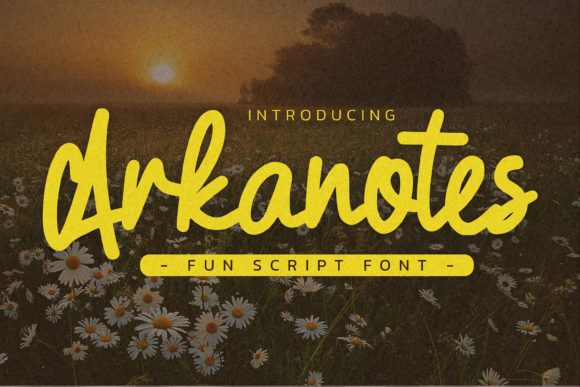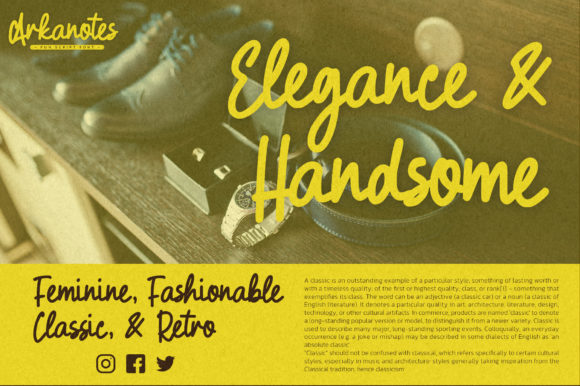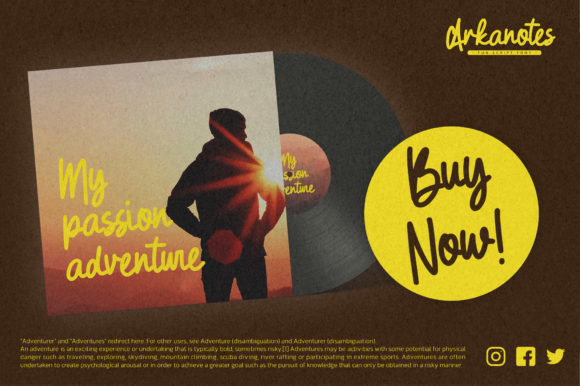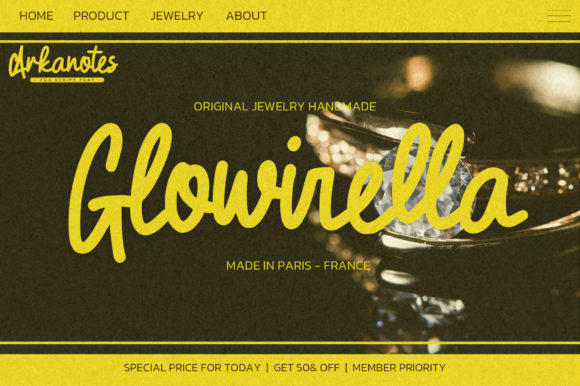
Arkanotes Font
About Arkanotes Font
Arkanotes is a quirky and casual handwritten font. No matter the topic, this font will be an incredible asset to your fonts’ library, as it has the potential to elevate any creation.